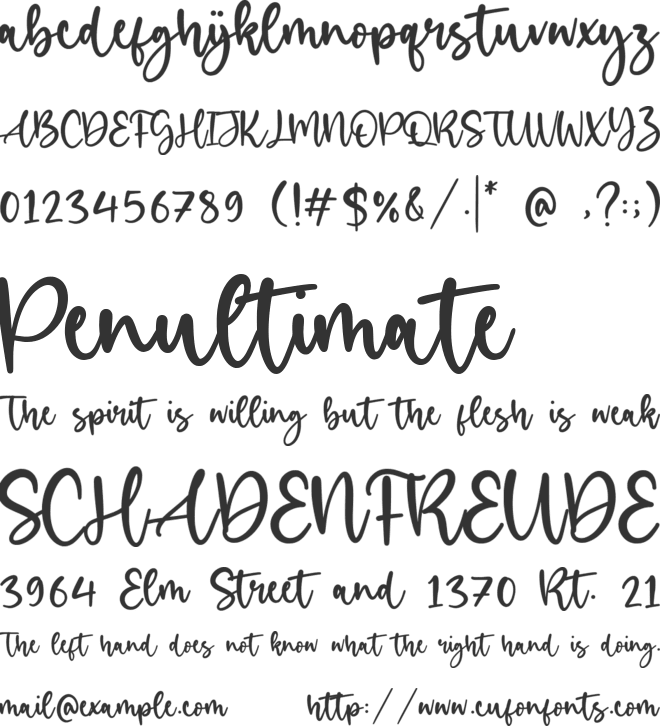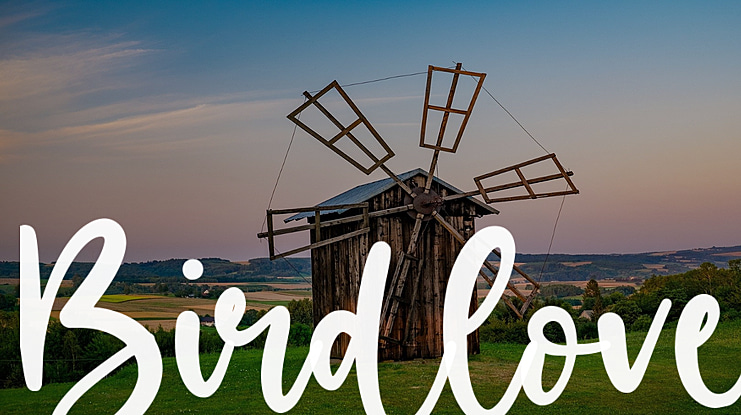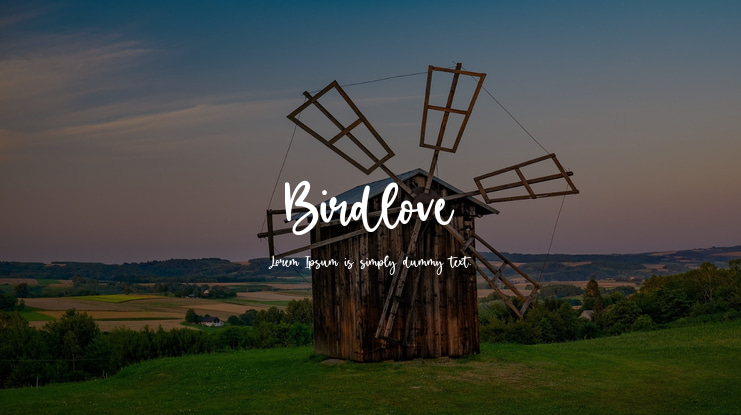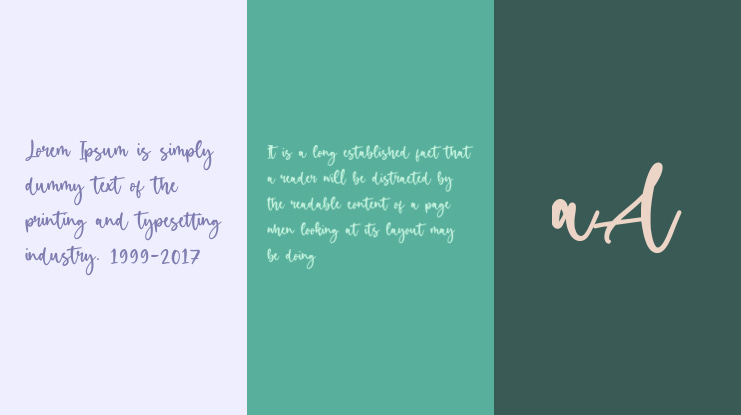
Birdlove Font
Introducing by Letterative Studio : Birdlove Font
Birdlove is a Lovely Handwritten Font
Birdlove is perfect for product packaging, branding project, megazine, social media, wedding, or just used to express words above the background.
Birdlove also multilingual support